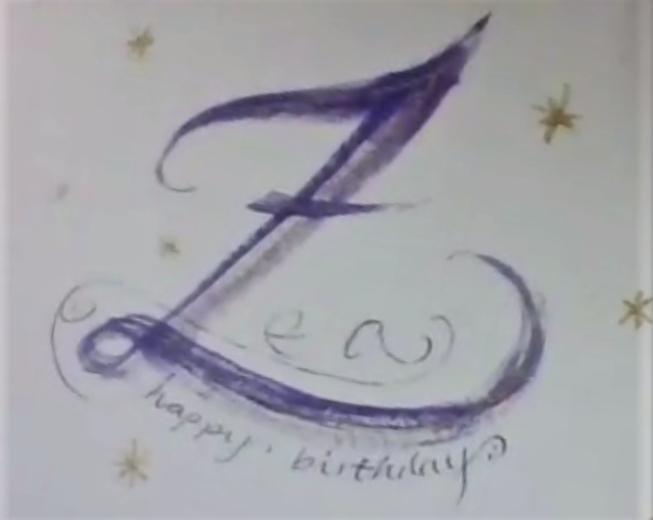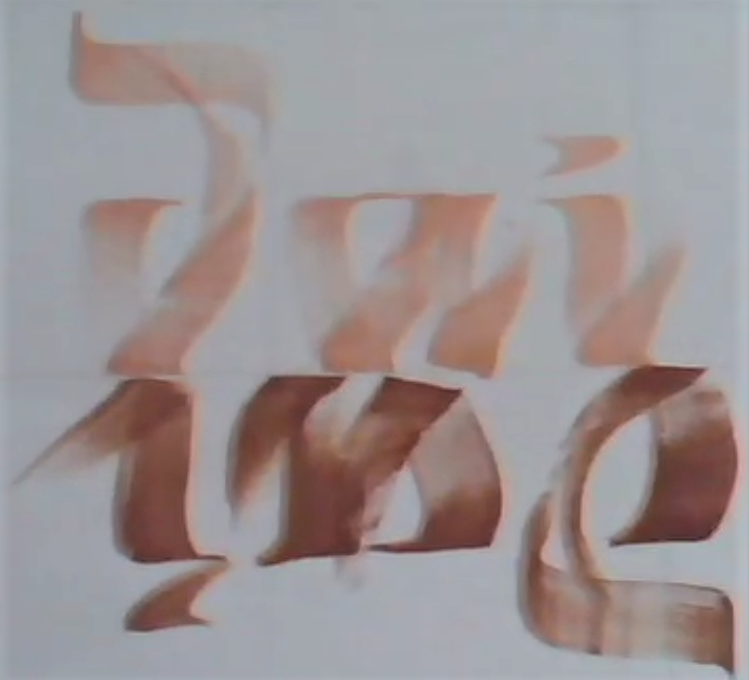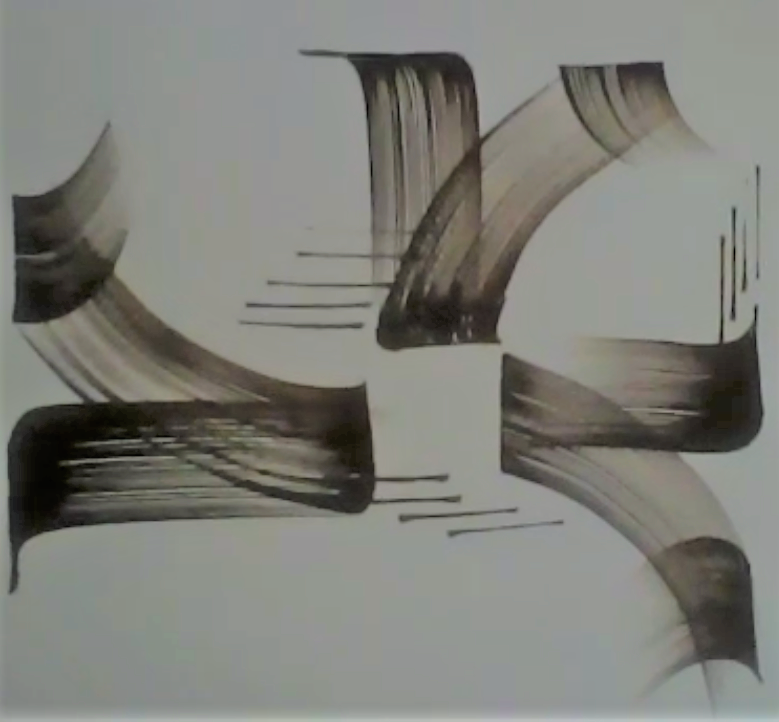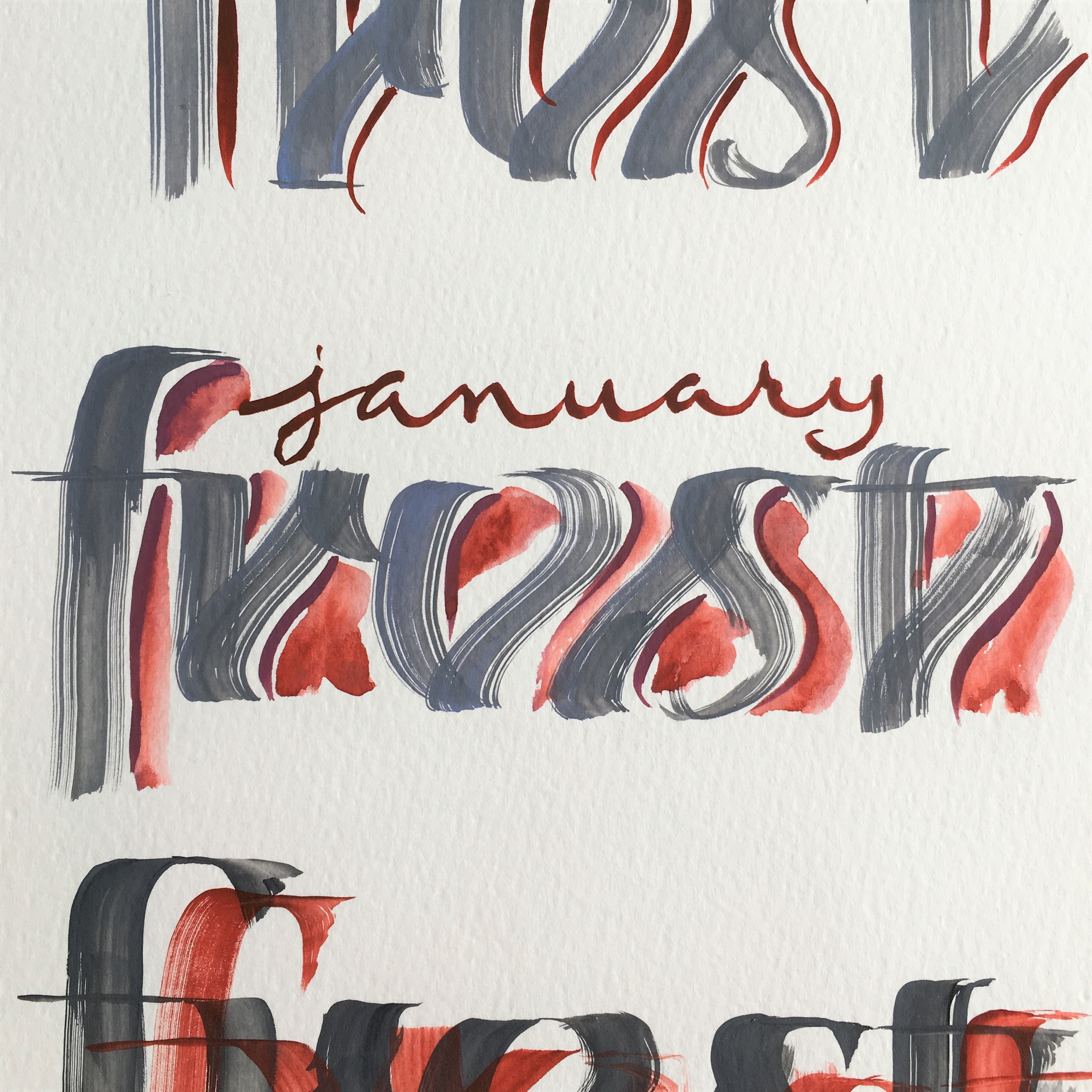
Flame script came out of playing and relaxing after long hours of practising the Roman Capitals…so, it is my own invention! This script helps you to achieve the lightness of the strokes and taking the right amount of the colour which is from the beginning quite challenging. However also the most advanced calligraphers will enjoy it as I also developed an advanced script afterwards which includes manipulation of the brush in unimaginable ways.
An enjoyable workshop in which we learnt how to mix the right consistency of gouache and how to load and hold the flat brush correctly. We practised basic strokes then moved on to letters. Loredana showed us how this script lends itself particularly to elements of a design. We felt it would be useful in our own designs with a different script alongside.